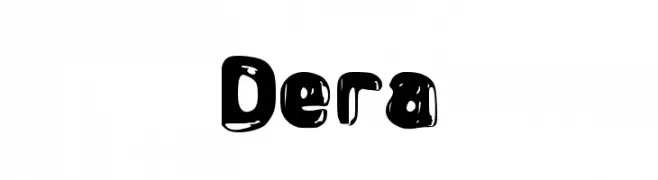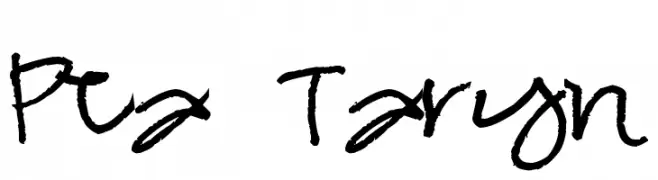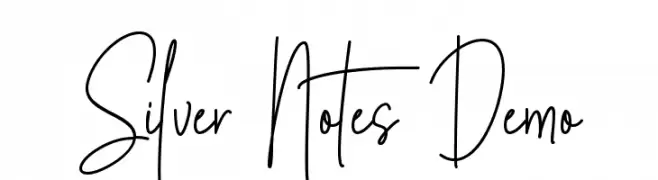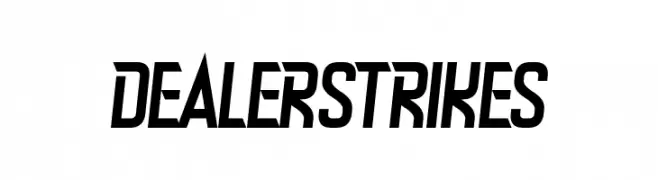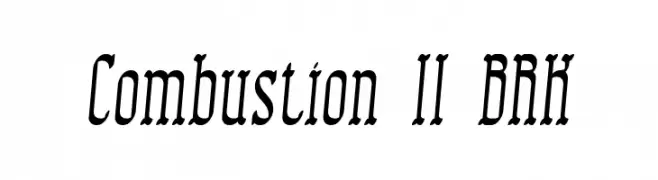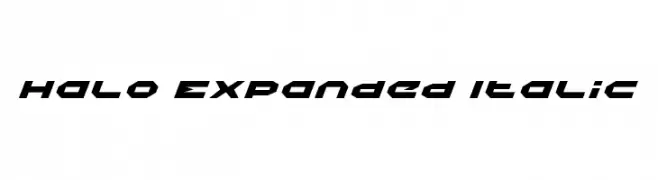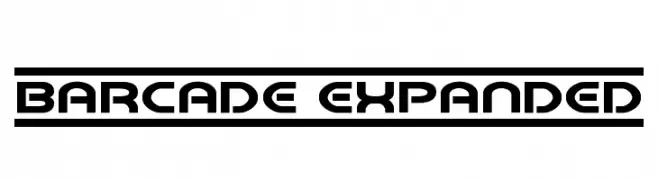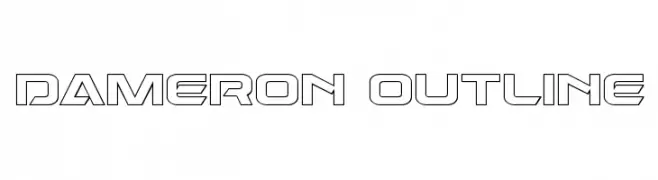
A bold, playful font with a bubbly, rounded design and thick strokes.
A playful, handwritten font with a casual and dynamic style.
Casual handwritten script font.
A bold, angular font with a modern and dynamic style.
A modern, decorative font with bold, blocky uppercase and thin, elegant lowercase letters.
A bold, angular serif font with a vintage flair and dynamic presence.
A bold, futuristic font with sharp angles and outlined characters.